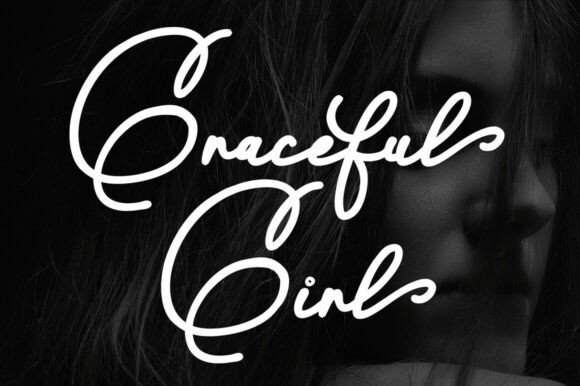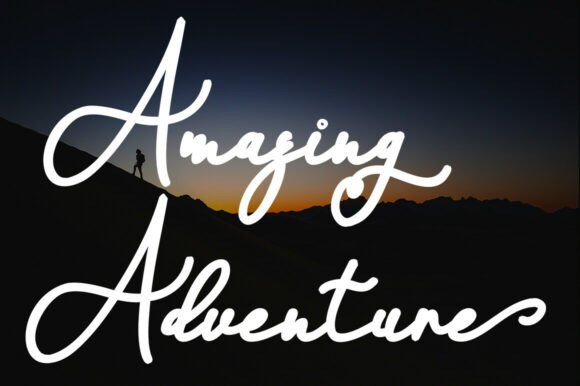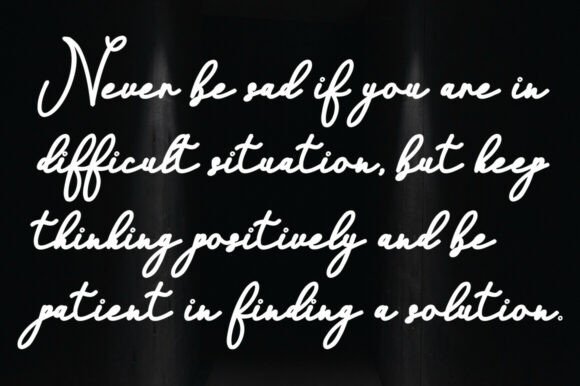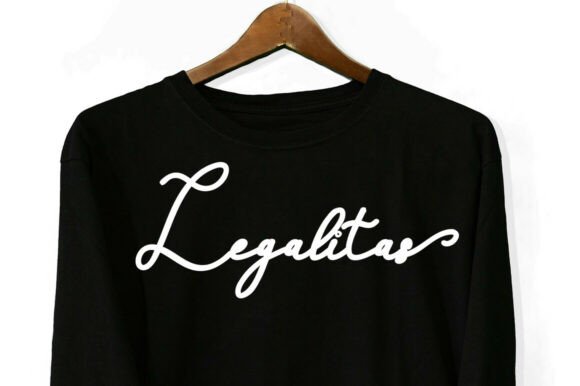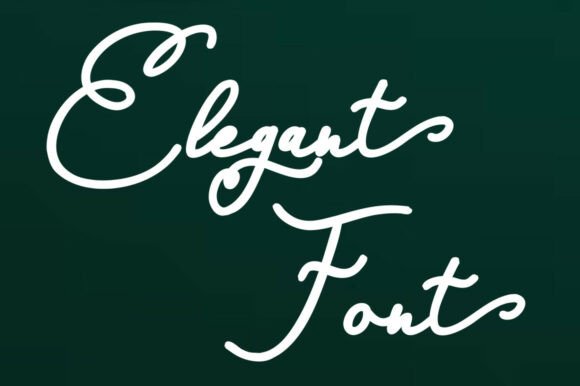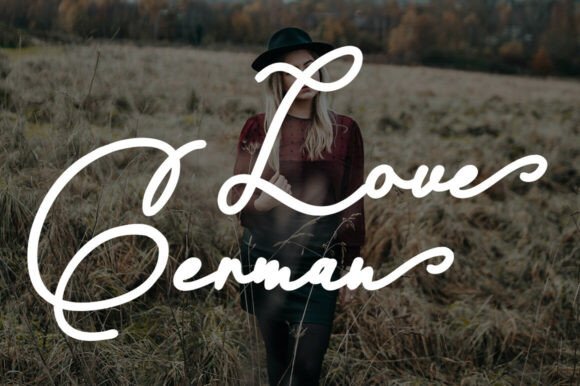
Introducing the Amstrong Font: Elevate Your Designs with Elegant Signature Script
In the world of typography, few fonts manage to strike a balance between elegance, readability, and modern sophistication. The Amstrong font, a modern signature script font, achieves this delicate balance with remarkable finesse. It captures the essence of handwritten calligraphy while infusing it with a clean, contemporary flow that appeals to designers and crafters alike. Whether you’re working on branding, fashion logos, wedding invitations, packaging, or any project that demands a touch of luxury and personal touch, the Amstrong font is an exceptional choice.
The Essence of Amstrong Font
The Amstrong font is characterized by its sweeping curves and fluid strokes, which create a natural rhythm reminiscent of a true pen-on-paper signature. This fluidity gives the font a personal and professional feel, making it versatile for various applications. The design focuses on the balanced contrast between thick and thin lines, a feature that radiates sophistication. This balance ensures that the font remains readable across different sizes and mediums, a crucial aspect for any designer.
Unique Stylistic Character
What sets the Amstrong font apart is its unique stylistic character, which effortlessly blends cursive grace with modern refinement. This blend makes the font ideal for projects seeking a luxurious handwritten identity that feels authentic, stylish, and timeless. The Amstrong font isn’t just a typeface; it’s a statement of elegance and sophistication that can elevate the visual appeal of any project.
Applications of Amstrong Font
The versatility of the Amstrong font makes it suitable for a wide range of applications:
- Branding: Establish a luxurious and memorable brand identity with a font that exudes elegance and professionalism.
- Fashion Logos: Perfect for fashion brands looking for a logo that communicates style, sophistication, and modernity.
- Wedding Invitations: Add a touch of personal elegance to wedding invitations and stationery.
- Packaging: Elevate product packaging with a font that conveys luxury and quality.
Why Choose Amstrong Font?
Choosing the Amstrong font for your design project comes with several advantages:
- Authentic Handwritten Feel: The font captures the essence of handwritten calligraphy, providing a personal touch to your designs.
- High Readability: Despite its elegant and cursive nature, the Amstrong font maintains high readability, making it suitable for body text and headlines.
- Timeless Appeal: Its classic yet modern design ensures that your project won’t look dated anytime soon.
- Versatility: The font can be used across various platforms and in print materials, offering flexibility in design.
Tips for Using Amstrong Font Effectively
To maximize the impact of the Amstrong font in your designs, consider the following tips:
- Pair with Neutral Fonts: When using the Amstrong font alongside other typefaces, opt for neutral fonts that don’t compete for attention. A simple sans-serif or serif font can complement Amstrong beautifully.
- Experiment with Sizes: Play with different sizes to emphasize certain parts of your text. The Amstrong font scales well, making it perfect for headlines and body text.
- Pay Attention to Color: Choose colors that complement the elegance of the font. Monochromatic schemes or subtle gradients can enhance the luxurious feel.
The Amstrong font is a versatile and elegant typeface that can bring a touch of sophistication and personal warmth to any design project. Its unique blend of traditional calligraphy and modern design makes it a valuable asset for designers and crafters looking to create visually appealing and impactful works. Whether you’re aiming for a luxurious brand identity, an elegant wedding invitation, or stylish packaging, the Amstrong font offers the perfect combination of style, readability, and timeless appeal.
Embrace the Amstrong font in your next project and experience how a simple typeface can transform your design into a statement of elegance and professionalism.